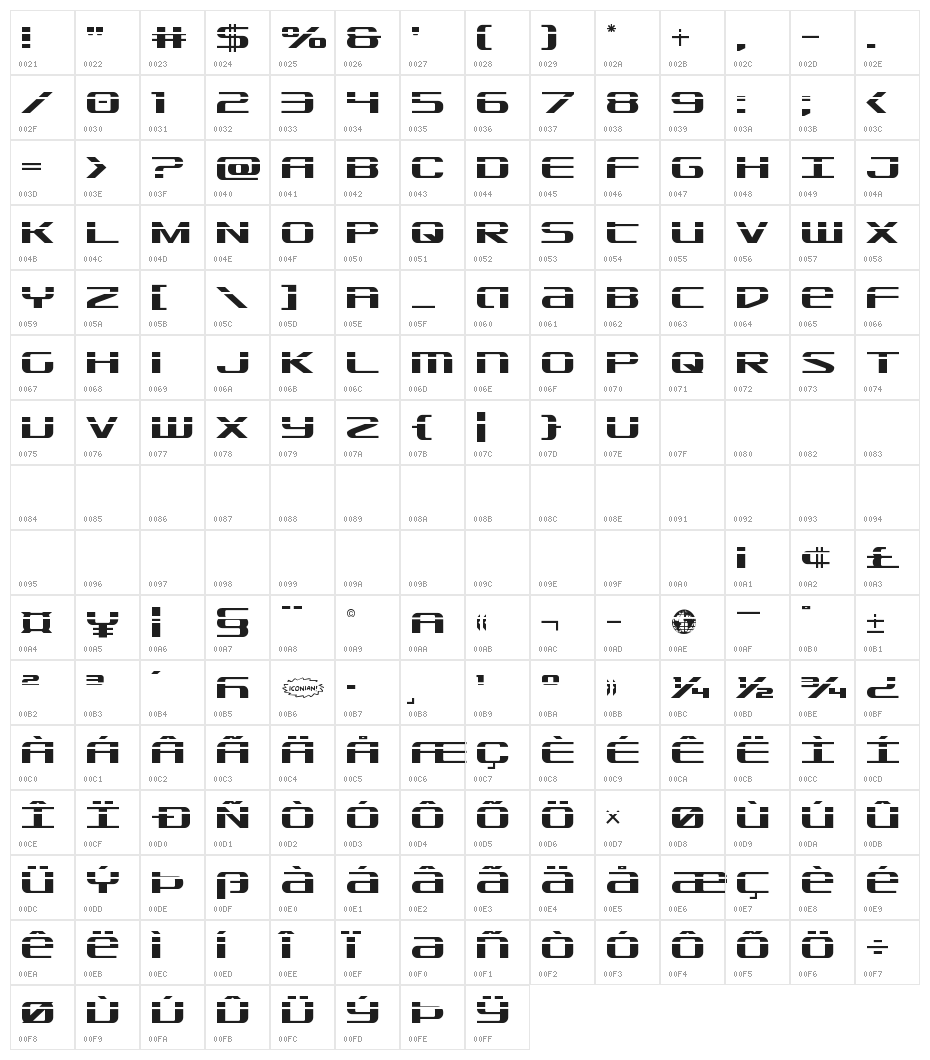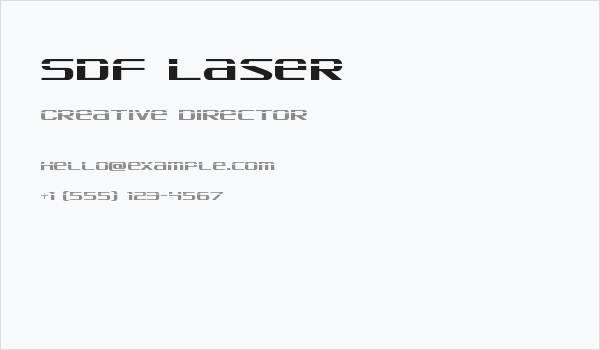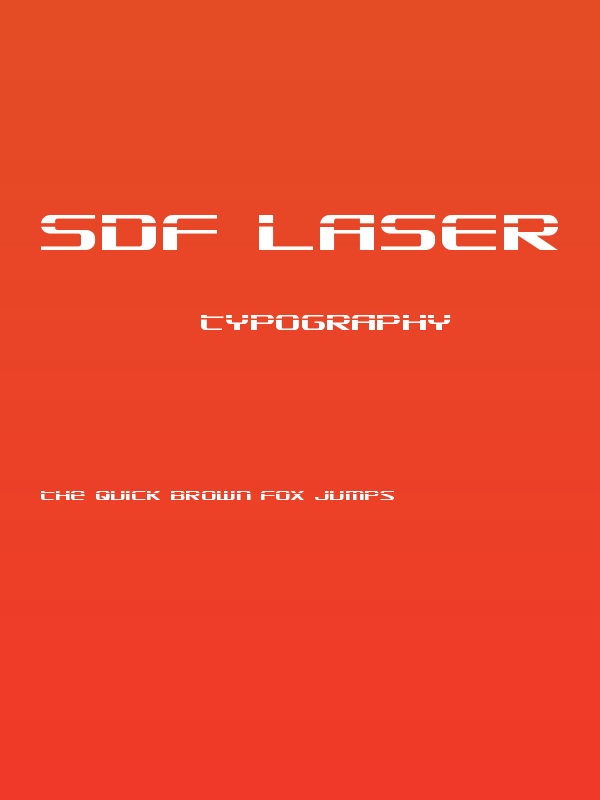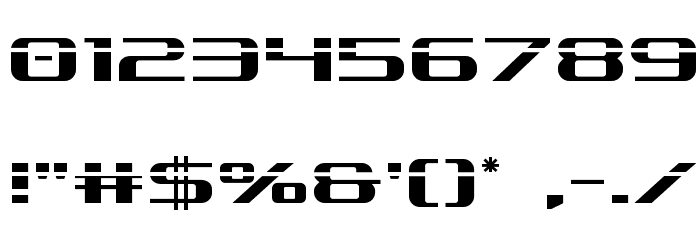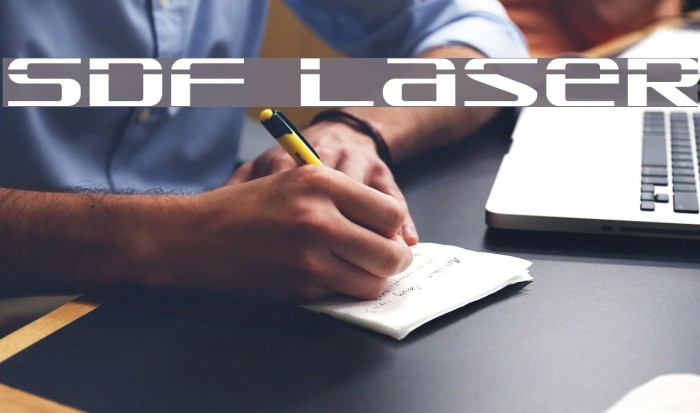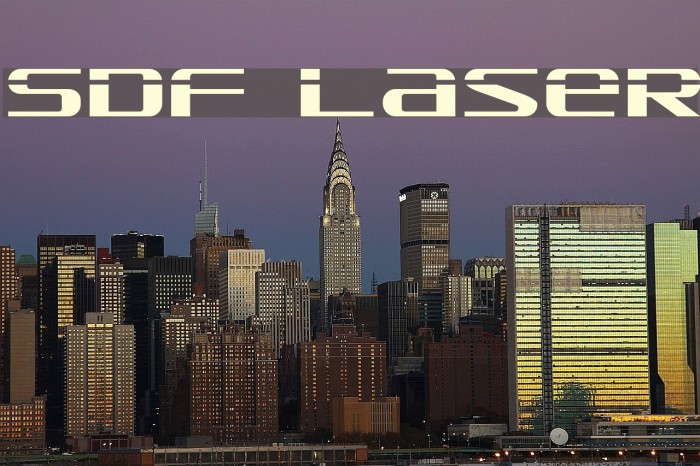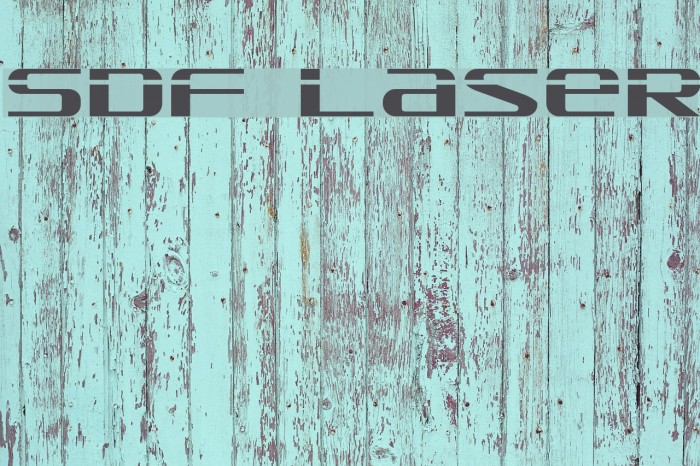
SDF Laser Font
SDF Laser Description
This font features a futuristic, geometric design with a distinct stencil-like appearance. The characters are composed of bold, angular shapes with consistent gaps that create a segmented look, reminiscent of laser-cut designs. The uppercase and lowercase letters maintain a uniform style, emphasizing sharp edges and straight lines. Numbers and special characters follow the same aesthetic, ensuring a cohesive visual identity. The font's unique style makes it ideal for projects that require a modern, tech-inspired look.
| Proposed Projects | Ideal for technology branding, sci-fi movie posters, video game titles, and futuristic event flyers. |